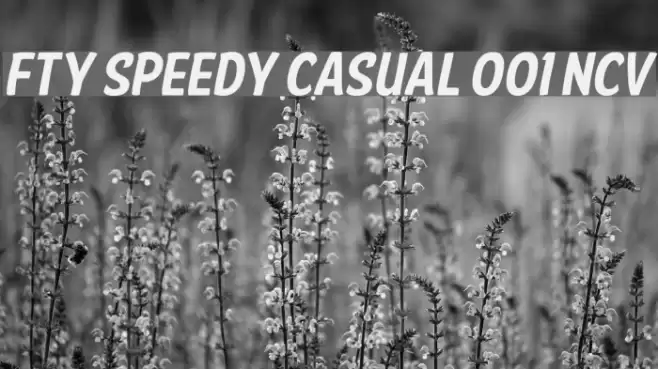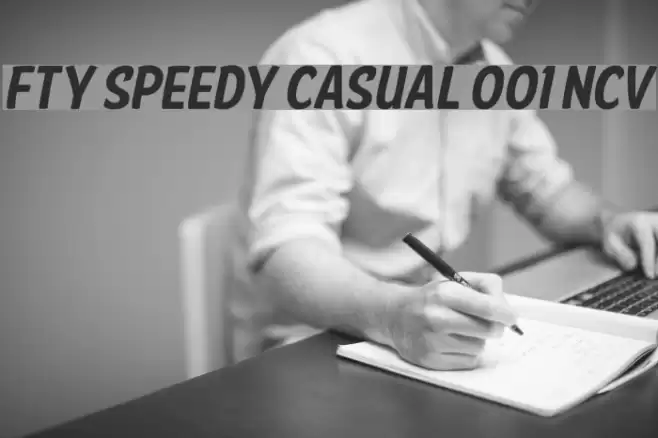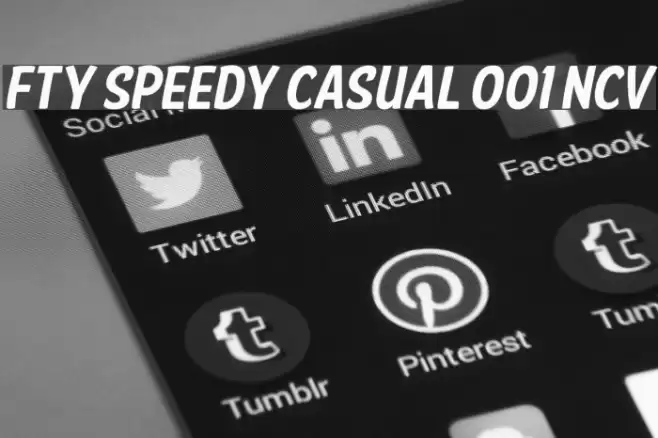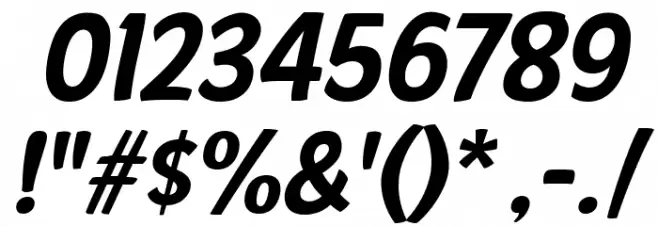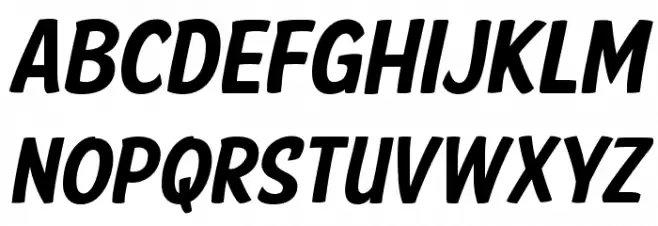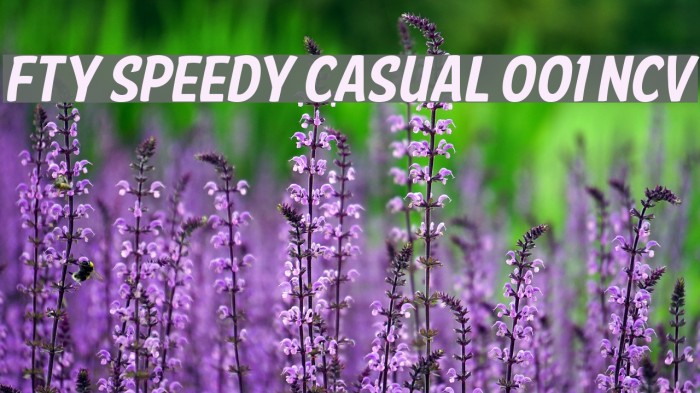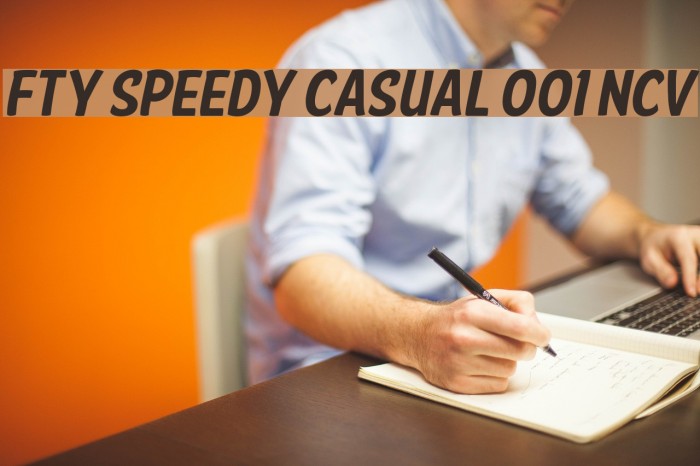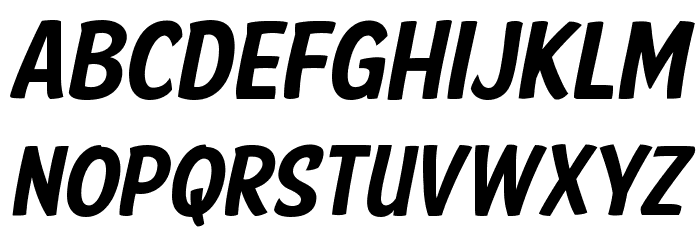
FTY SPEEDY CASUAL 001 NCV Font
FTY SPEEDY CASUAL 001 NCV Description
This font features a dynamic and energetic style, characterized by its bold and slightly italicized letterforms. The strokes are thick and consistent, providing a strong presence on the page. The letters are slightly slanted, giving a sense of movement and speed, which is enhanced by the rounded edges and smooth curves. The numbers and special characters maintain the same boldness and slant, ensuring uniformity across all elements. This font's design is both modern and casual, making it suitable for a variety of applications where a lively and approachable feel is desired.
A bold, italicized font with a dynamic and energetic style from Uncategorized fonts.
- Proposed Projects: Ideal for sports branding, dynamic posters, casual event invitations, and modern advertising campaigns.
- Overall Style: Modern, Casual